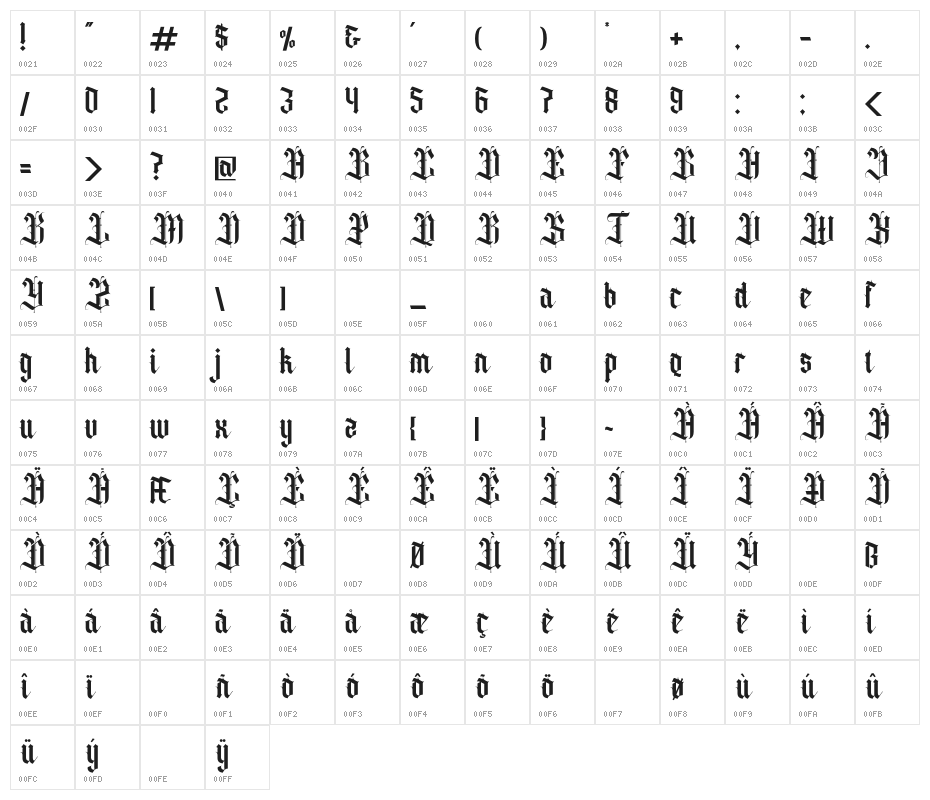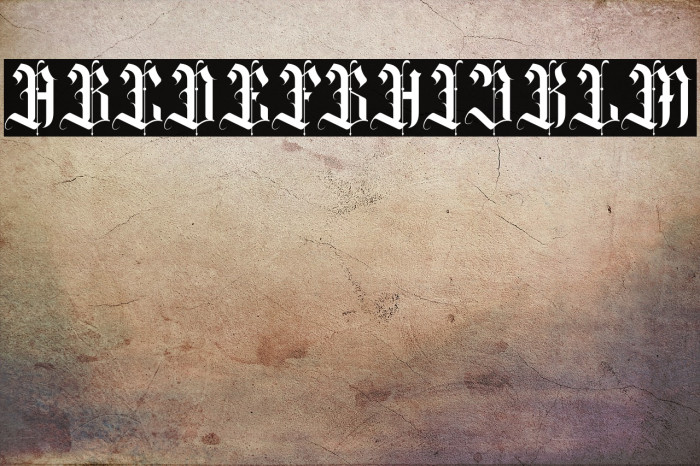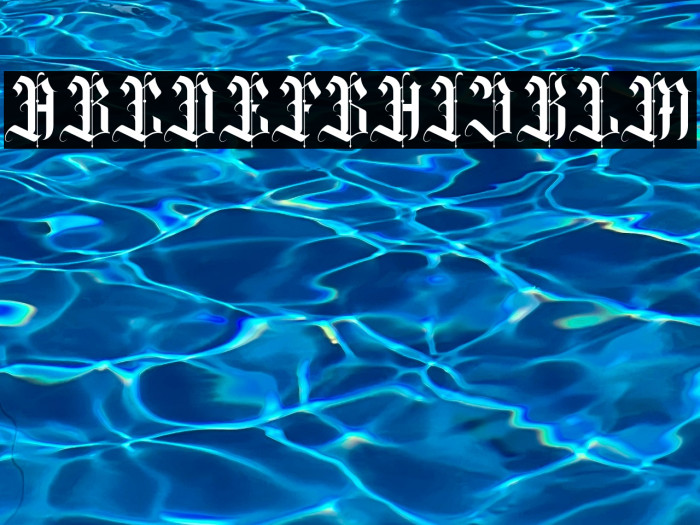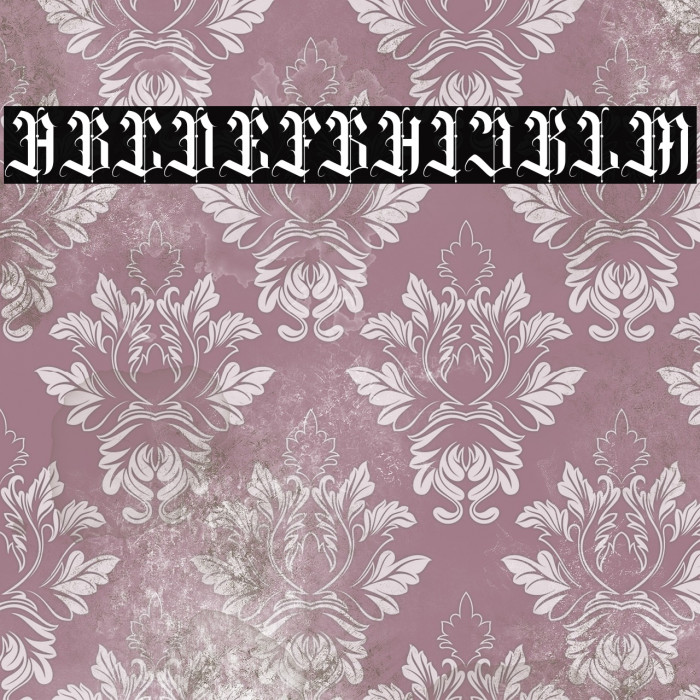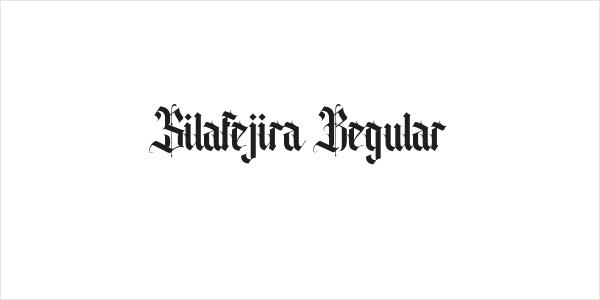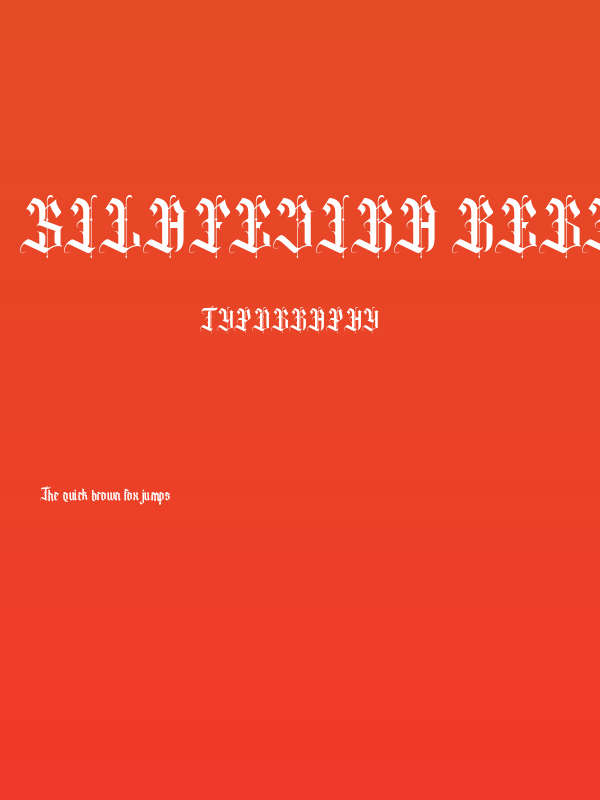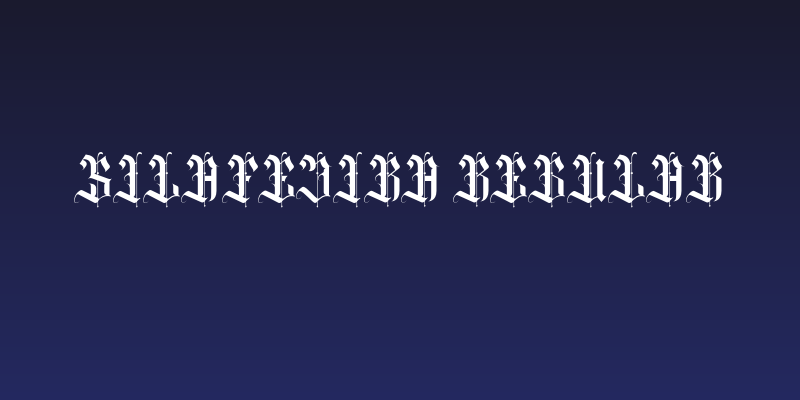
Silafejira Regular Font
Silafejira Regular Description
This font is a striking example of Blackletter style, characterized by its intricate and ornate design. The letters are bold and angular, with sharp, pointed serifs and a high contrast between thick and thin strokes. The uppercase letters exhibit a traditional Gothic appearance, while the lowercase letters maintain a consistent style with a slightly more modern touch. The numbers and special characters are equally elaborate, fitting seamlessly into the overall aesthetic. This font exudes a sense of historical elegance and is reminiscent of medieval manuscripts.
| Use Case | Headlines, Logos, Decorative text |
| Proposed Projects | Ideal for projects requiring a historical or medieval theme, such as book covers, posters, or branding for vintage products. |